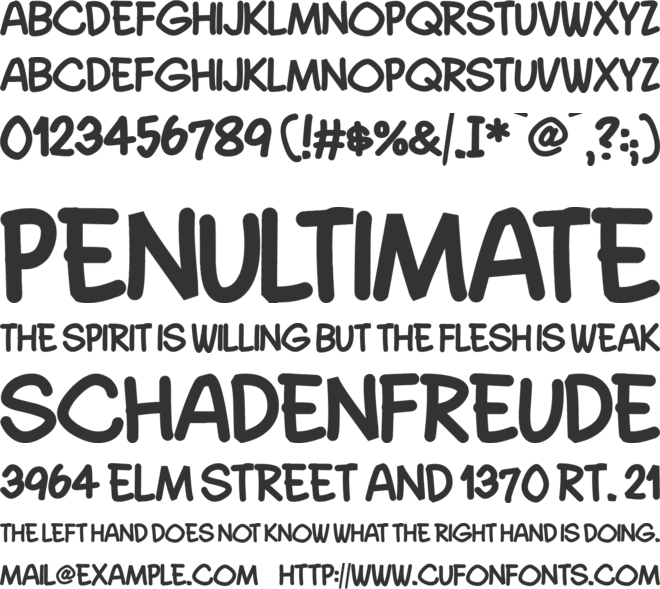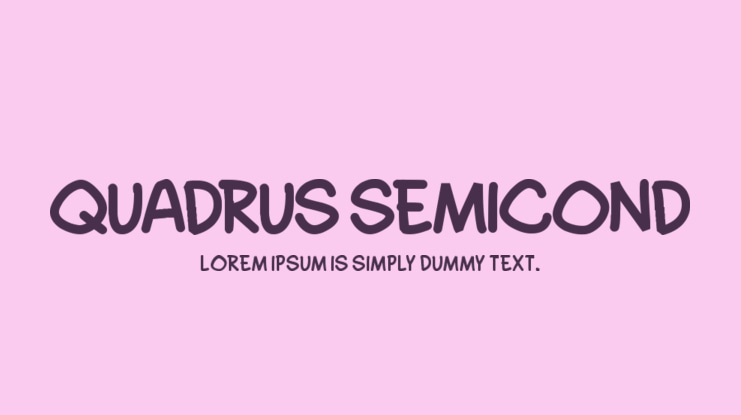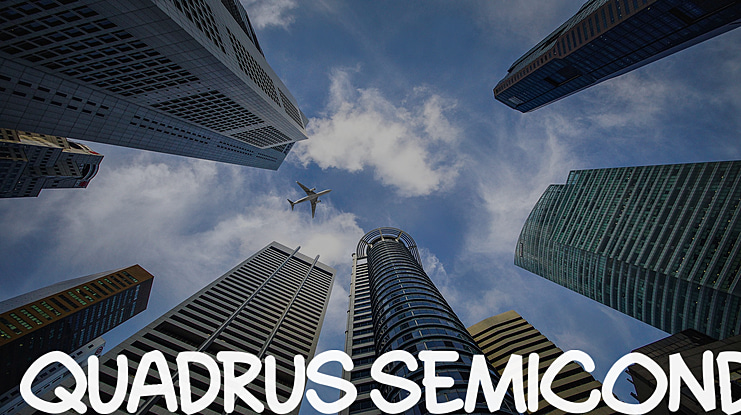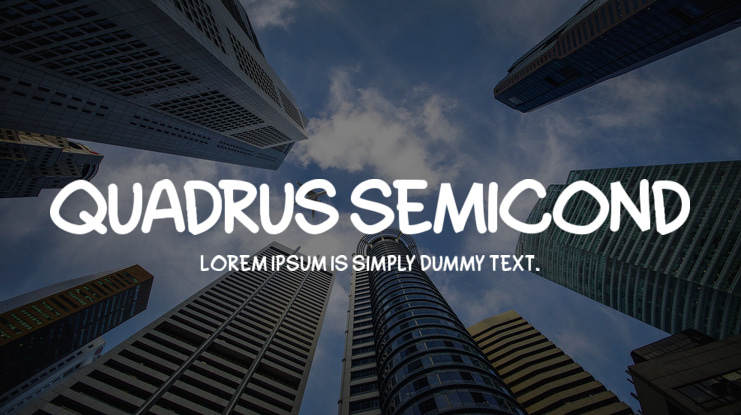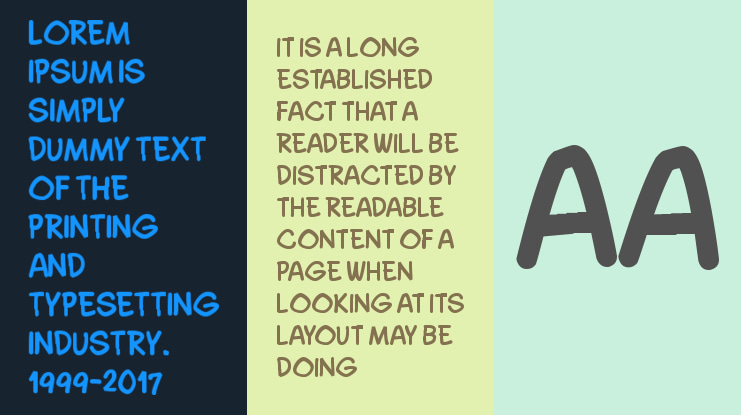
Quadrus Semicond Font Family
A comics font done digitally, with a mouse (hence some sharp corners) and distorted to make the bold italic version, whose distinctive feature, on its Roman version is having some letters narrower than others - hence the 'Semicond'. Other versions of this font are on the way.
This font have accented characters, that on another fonts are offered as a bonus, but as a speaker of a language that uses Latin accented characters, I rarely will let them aside on my fonts. On the other side, these fonts include the character "serifed I" used on English at the "|" character.